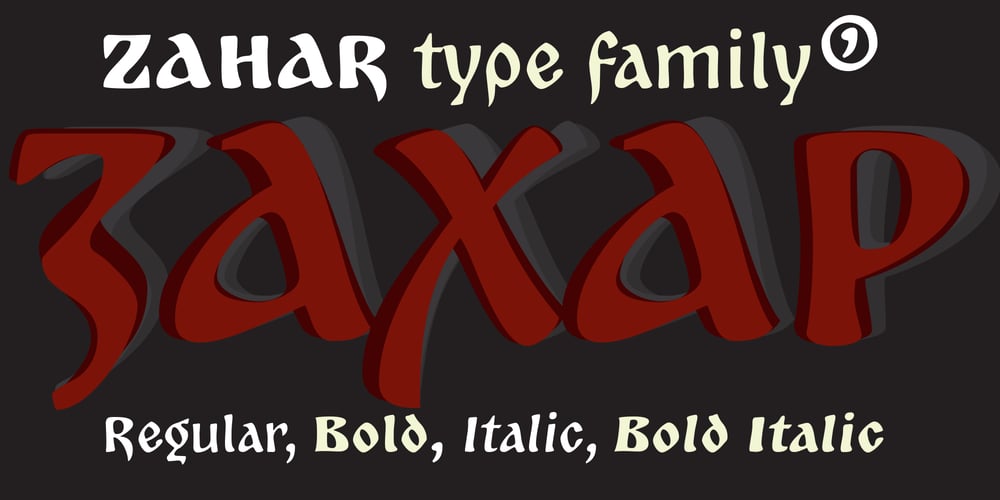
Zahar Font Family was designed by Viktor Kharyk, Henadij Zarechnjuk and published by Apostrof. Zahar contains 4 styles and family package options. Zahar type family is based on the lettering developed by the famous Ukrainian graphic artist Georgi Yakutovich and designed for Ivan Franko’s book Zakhar Berkut. It is good for the design of children’s books, folk tales, songs, etc. Zahar is easy to read in short texts. It supports Extended Latin and Cyrillic (including Old Church Slavonic). A special OT-feature is added to support the Old Church Slavonic alphabetic numeral system.